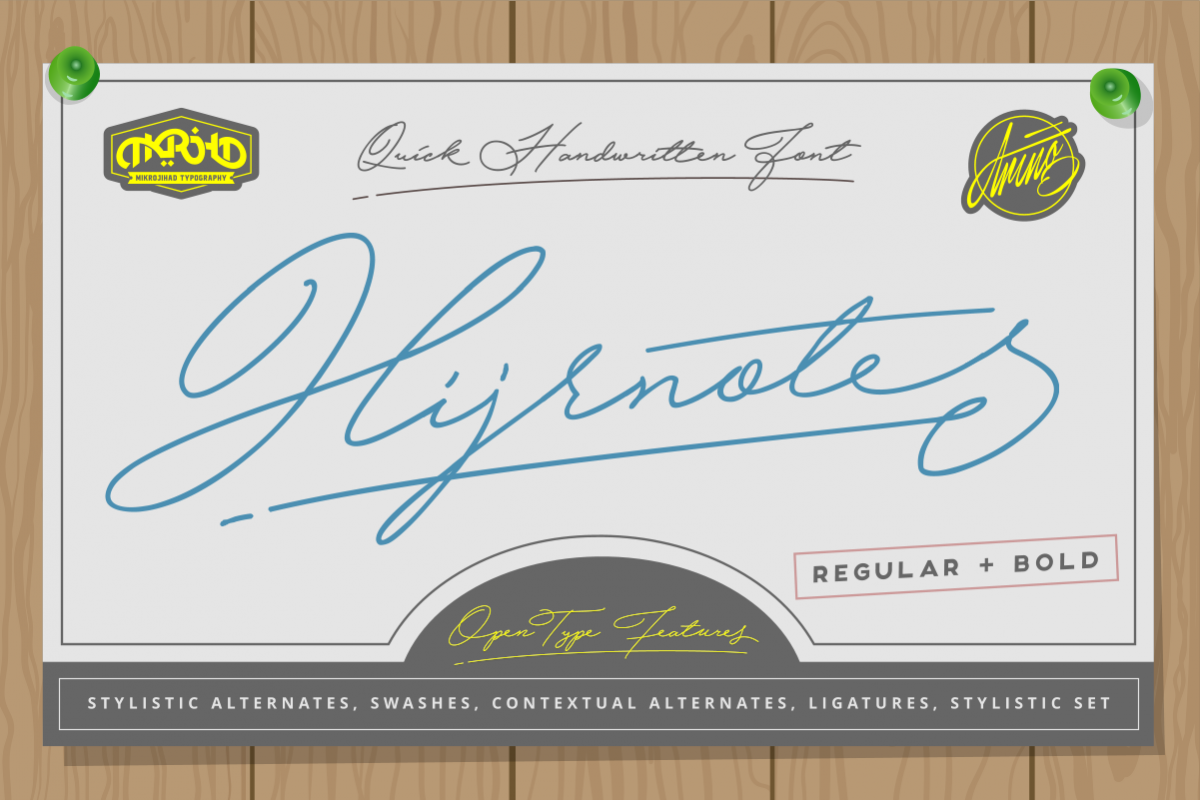
Hijrnotes
This font is our first collaboration with Swedian Type Designer Mans Greback (aringtype) in 2016.
Packed with OpenType Feature with hundred of Alternates Character to play.
Pair, combining  the alternates to make your typography naturally looks handmade.
Hijrnotes was made digitally handwritten with a stylus pen on a tablet.
2 weghts; Regular and Bold.
Big Uppercase with  Small Uppercase but it is still elegantly readable.
Very good for autography design, name cards, neon signs and quote typography posters and flyers.